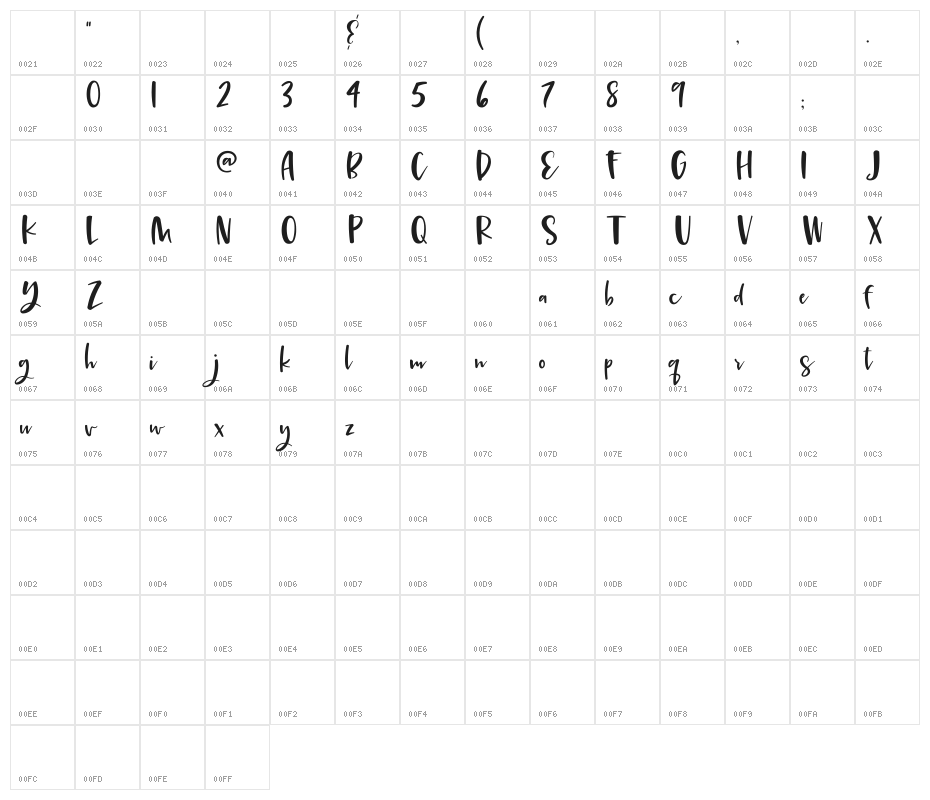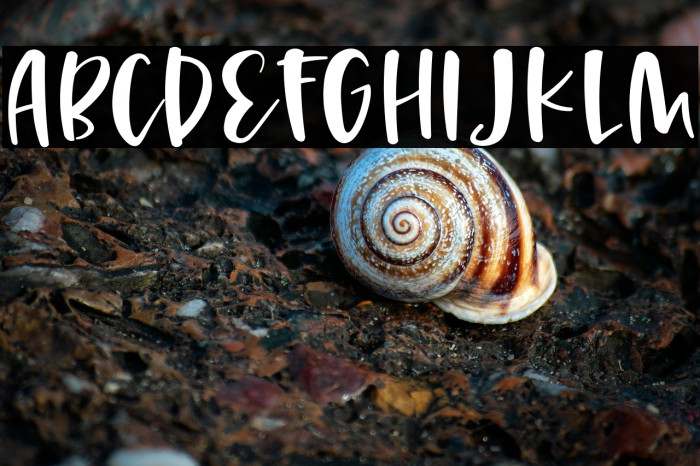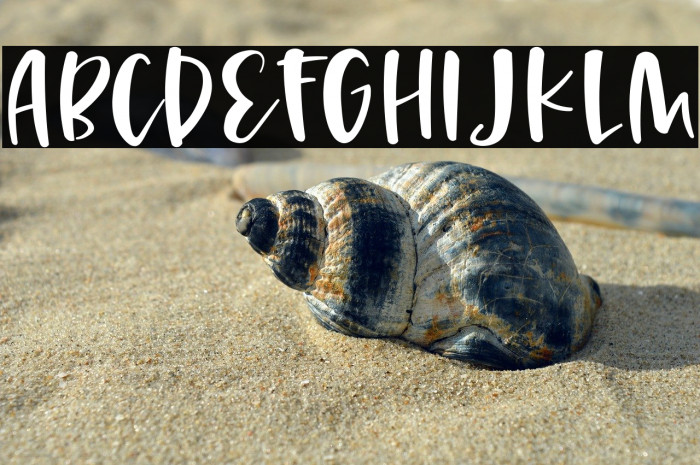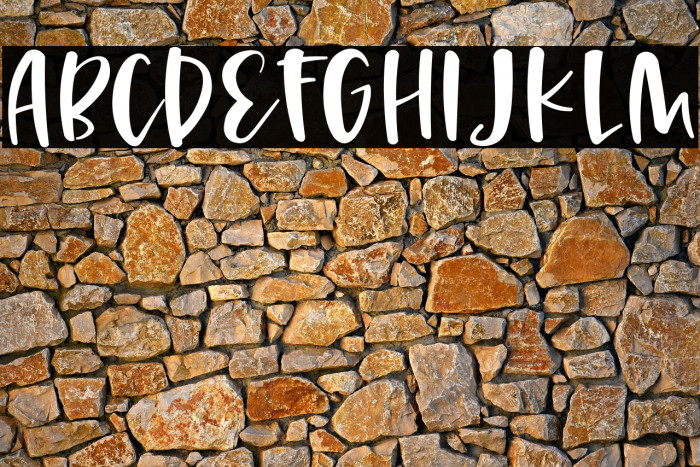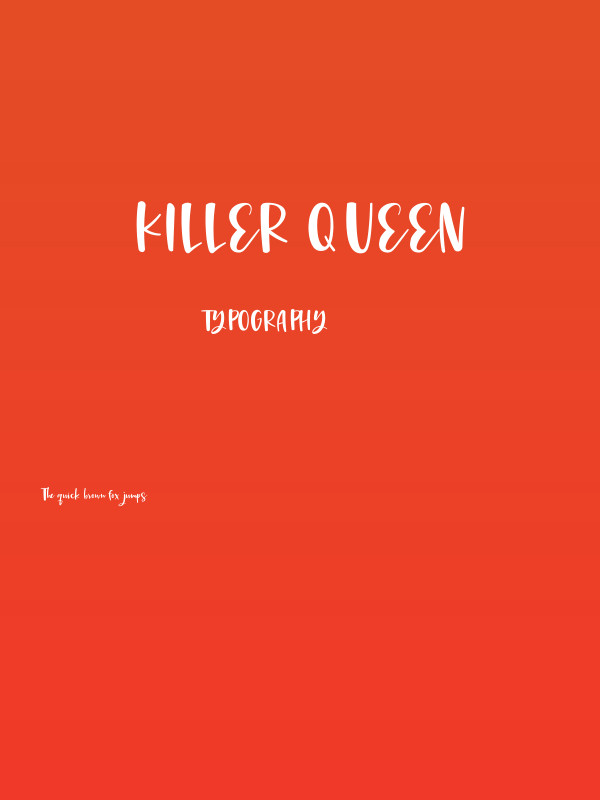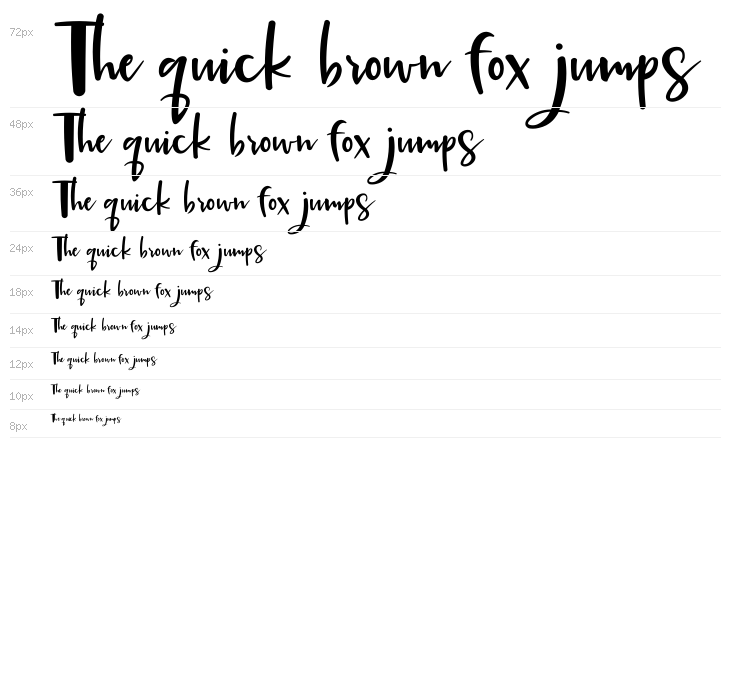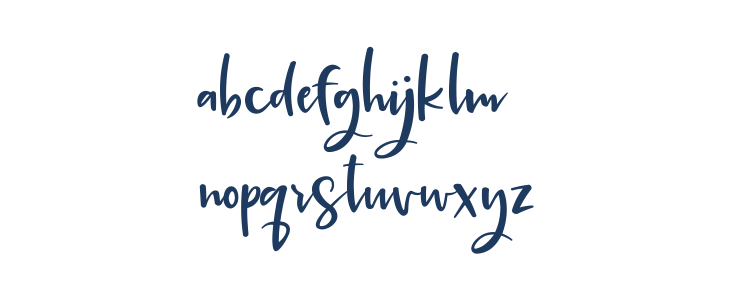
Killer Queen Font
Killer Queen Description
This font features a lively and dynamic handwritten style, characterized by its bold and flowing strokes. The uppercase letters are tall and slightly condensed, with a playful bounce that adds a sense of movement. The lowercase letters maintain a consistent rhythm, with some letters featuring distinctive loops and curls that enhance its whimsical nature. The numerals are bold and rounded, complementing the overall style. Special characters are creatively integrated, maintaining the font's energetic and informal feel. This font is perfect for projects that require a personal and approachable touch.
| Proposed Projects | Ideal for greeting cards, invitations, branding, and social media graphics. |